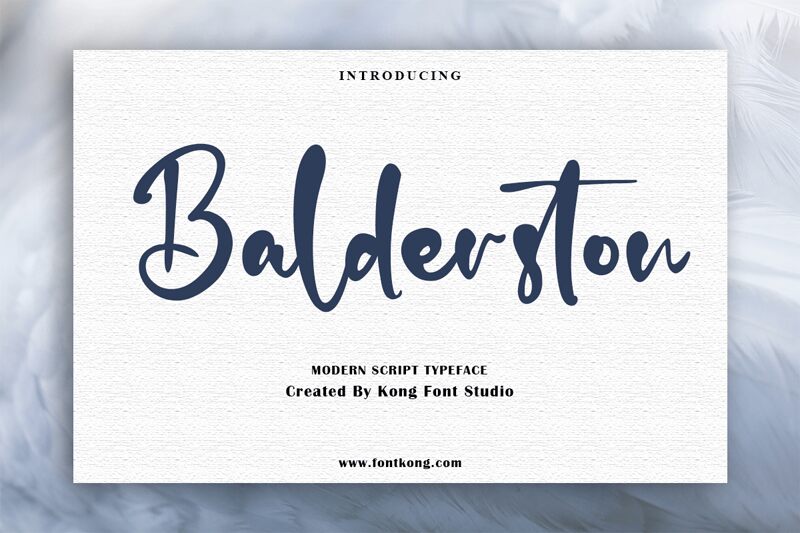
Balderston
Balderston, the ultimate handwritten marker font designed by Kong Font, is perfect for creative projects that need a touch of authenticity and uniqueness. Its playful yet professional style makes it suitable for various designs such as logos, branding materials, posters, packaging, social media graphics and more. The semi-bold font with its medium width adds character to any project while maintaining legibility. With Balderston font, your designs will stand out from the crowd with its hand-drawn appeal and natural imperfections. Try it now and unleash your creativity!